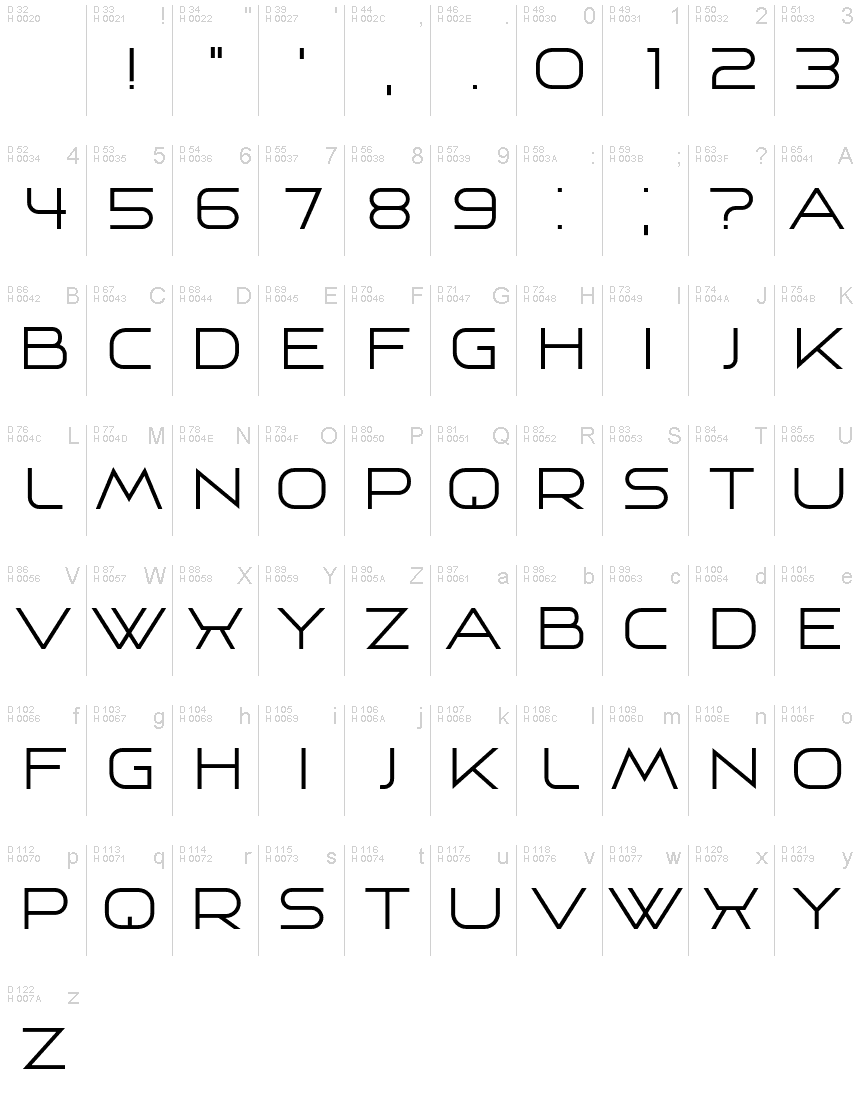
Ksana Regular
Ksana, a light sans serif font designed by Vladimir Nikolic, captivates with its modern and sleek appearance. Its extra-expanded width adds a unique touch to any project, making it suitable for a variety of creative endeavors.
For those seeking an elegant and sophisticated look, Ksana is the perfect choice to enhance branding materials, including logos and business cards. Its clean lines and spacious letterforms also make it ideal for editorial design, such as magazines or books.